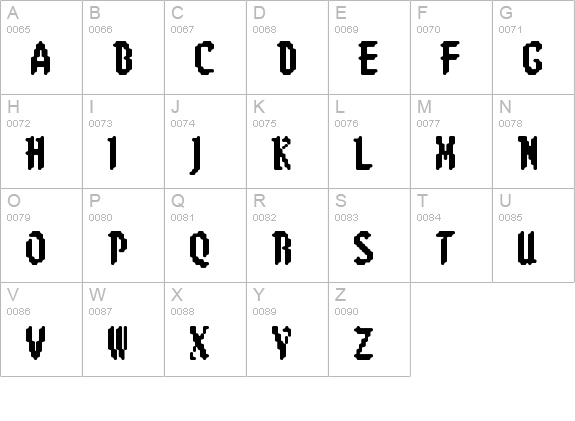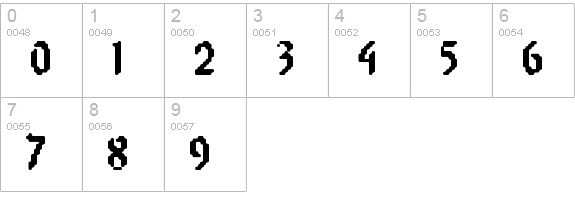
8-bit Limit R BRK Font Details
The 8-bit Limit R BRK font is a charming and nostalgic typeface that brings a touch of retro flair to any project. With its pixelated design reminiscent of classic video games, this font is perfect for adding a playful and whimsical element to your designs. The bold and distinctive letterforms make a statement while maintaining a sense of fun and creativity. Whether you're working on a gaming project, creating a vintage-inspired poster, or designing a website with a throwback feel, the 8-bit Limit R BRK font is sure to capture attention. Its unique style and quirky charm make it a versatile choice for a wide range of applications. Best of all, this font is available for free download at FontsMarket.com, making it accessible to designers and creatives of all levels. Don't miss out on the opportunity to add this delightful font to your collection and infuse your projects with a touch of retro nostalgia.